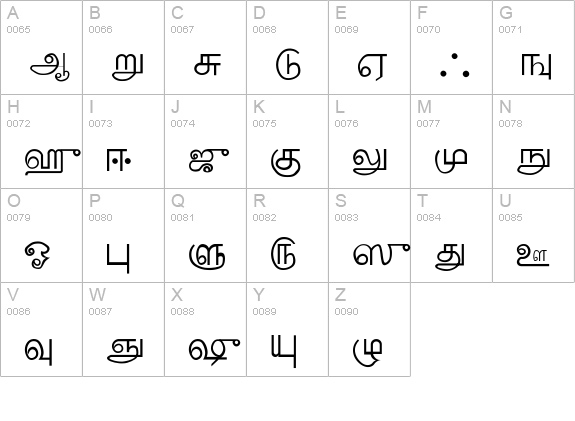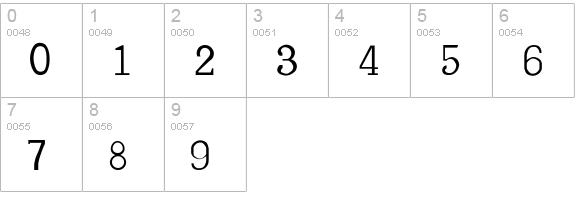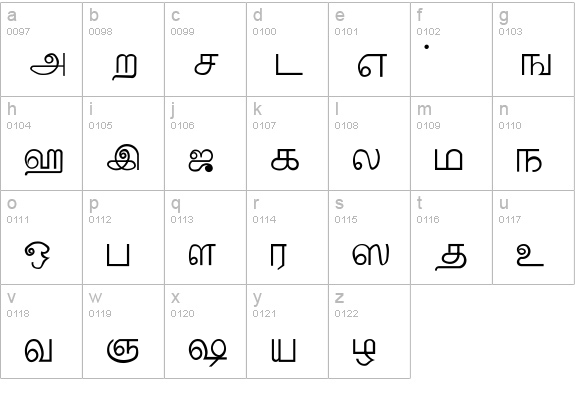
Palladam-Normal Font Details
Palladam-Normal is the standard, neutral variant in the Palladam typeface family \xE2\x80\x94 well suited to general body text, paragraphs, and standard typographic work.
Palladam-Normal font is a visually stunning typeface that exudes elegance and sophistication. With its clean lines and balanced proportions, it is the perfect choice for any design project that requires a touch of refinement. Whether you are creating a logo, designing a website, or working on a print publication, Palladam-Normal font will elevate your work to new heights. What sets Palladam-Normal font apart is not only its aesthetic appeal but also its versatility. It can effortlessly adapt to a wide range of design styles, from modern and minimalist to classic and timeless. This makes it an ideal choice for designers who want a font that can be used across various projects without losing its impact. One of the best things about Palladam-Normal font is that it is available for free download at FontsMarket.com. This means that you can easily access and use this incredible typeface without any cost. Whether you are a professional designer or a hobbyist, this free font allows you to add a touch of sophistication to your work without breaking the bank. Don't miss out on the opportunity to enhance your designs with Palladam-Normal font. Visit FontsMarket.com today and download this exquisite typeface for free. Elevate your projects with the timeless elegance of Palladam-Normal font and make a lasting impression on your audience.